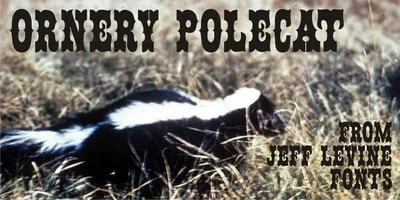
Ornery Polecat JNL Font
This mischievous typeface is perfect for comedy clubs, humorous publications, playful branding, satirical magazines, entertainment venues, cartoon projects, children's books, novelty products, prank merchandise, comedy shows, funny greeting cards, whimsical restaurants, and lighthearted marketing campaigns. The font's playful design makes it ideal for projects that celebrate humor, mischief, and the delightful unpredictability of characters who march to their own beat with rebellious charm.
Ornery Polecat JNL Font is exciting because it captures the spirited rebellion and mischievous charm of cantankerous characters through its quirky letterforms and personality-driven character structure. The font's irregular angles and playful proportions create an atmosphere of humor, unpredictability, and endearing stubbornness, making it perfect for brands that want to convey personality, wit, and the courage to be different. Its ornery character ensures memorable impact while maintaining excellent readability across various entertainment applications.
The Ornery Polecat JNL Font family includes multiple mischievous variations: Light Scamp, Regular Rascal, Medium Troublemaker, Bold Rebel, and Black Rogue weights, each available in standard and wild versions. Special comedy editions feature quirky alternates, humorous ornaments, and playful symbols that enhance the font's entertaining appeal, providing designers with comprehensive tools for creating authentic humor-driven communications.
Unleash playful rebellion with Ornery Polecat JNL Font – a typeface that embodies mischievous charm and spirited independence. Whether you're developing comedy branding, entertainment materials, or humorous marketing campaigns, this font delivers the ornery personality and rebellious spirit your projects need while ensuring exceptional performance and memorable impact across all entertainment and humor applications.